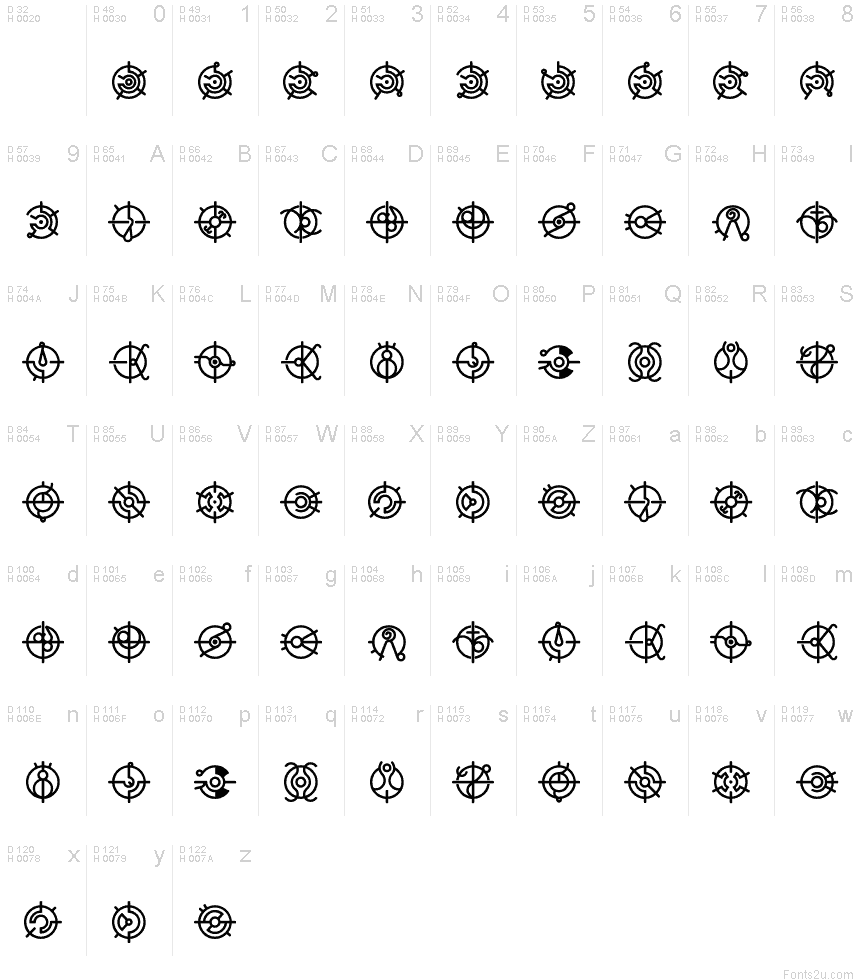
Forerunner, designed by Nick Polyarush, is a free esoteric dingbat font built from circular, diagram-like symbols. Its monoline forms combine rings, spokes, dots, and open arcs into compact marks that recall orbital charts, instrument dials, and coded seals.
Audiences drawn to science fiction, occult imagery, or speculative technology will find it useful for game interfaces, music artwork, and event posters. The symbols can become interface buttons or faction emblems. They also suit merchandise and book covers, especially when the artwork uses planetary paths, concentric targets, or mechanical diagrams as part of the scene.
This is the Forerunner font from the Halo video game series.